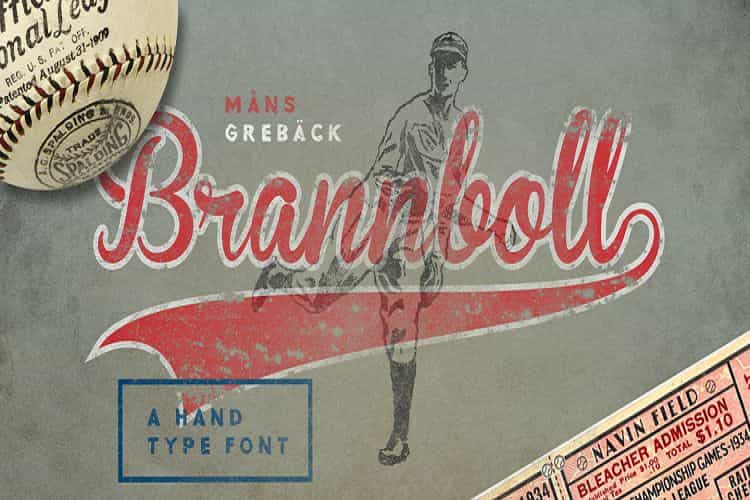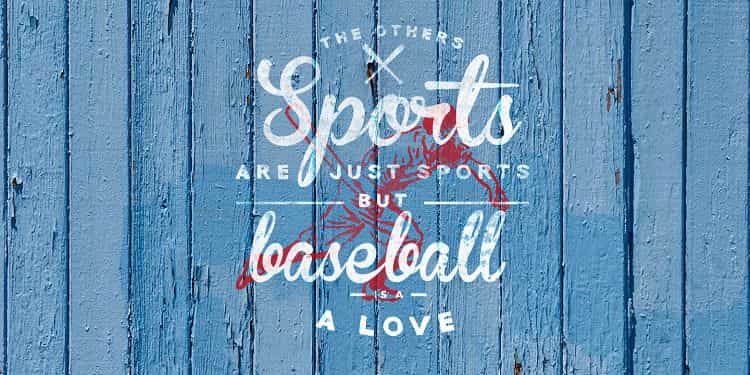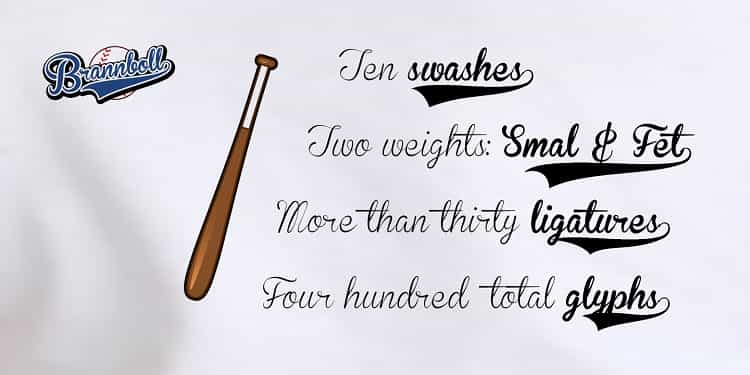
For those seeking baseball style script fonts in both thin variations with swashes, for added flair in your writing—this collection includes numbers as well.